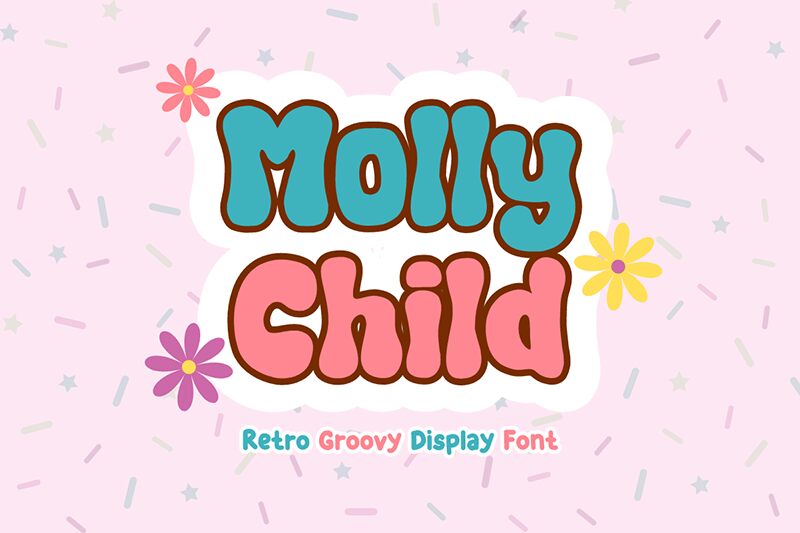
Molly Child font by Muhammad Afif of Minimalisteyes is a bold display typeface with groovy features that immediately attract attention. Developed to match the vibrancy of the seventies, it celebrates style, playfulness, and electricity. Across each character, you’ll be able to observe bubbly rounded shapes which appear friendly and welcoming overall. As the name suggests it appears to have been made for childish items but its vividness can take brands targeting any age group to new stylish heights.
Download this free display font for posters or branding designs for restaurants and cafes. It can also contribute positively to book covers, album covers, logos, movie titles, quotes on stationery items or packaging designs set within a lively background that brings out the best in it.